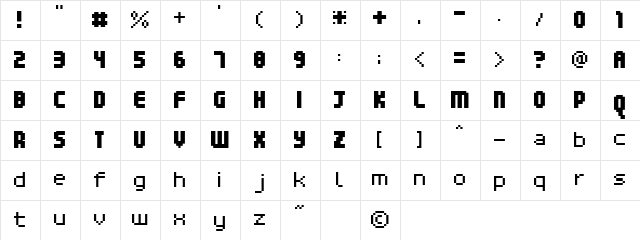
11px3bus Regular
Design Context for 11px3bus Typeface
11px3bus is a composed and adaptable typeface that performs quietly and consistently across a wide range of design contexts.